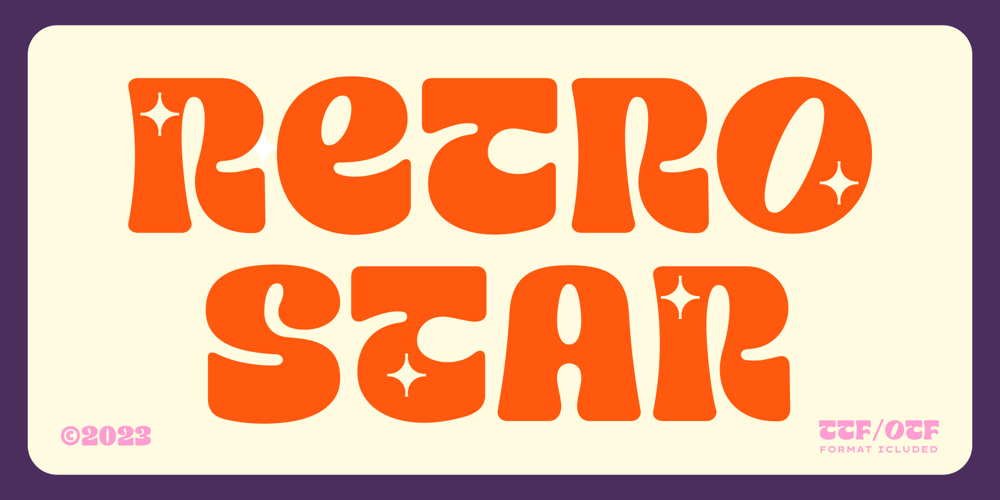
Retro Star
Retro Star font
Retro Star Font Family was designed by Bagus Arya and published by Genetype. Retro Star contains 1 styles and family package options. Introducing Retro Star Typeface: Unleash Nostalgia in Every Letter!Step into a time capsule with Retro Star, our latest vintage-themed font that oozes old-world charm. Radiating a sense of nostalgia, this typeface takes you back to the elegance pop from days gone by. Retro Star lends an air of authenticity to your designs. Embrace the past and craft designs that resonate with the soul of yesteryears – discover Retro Star today!